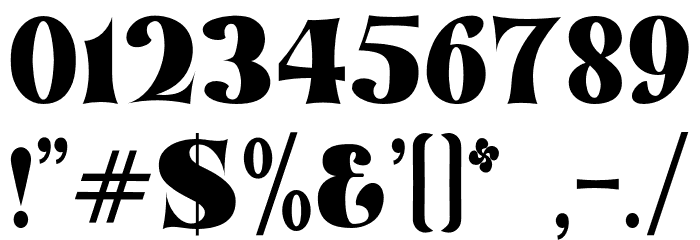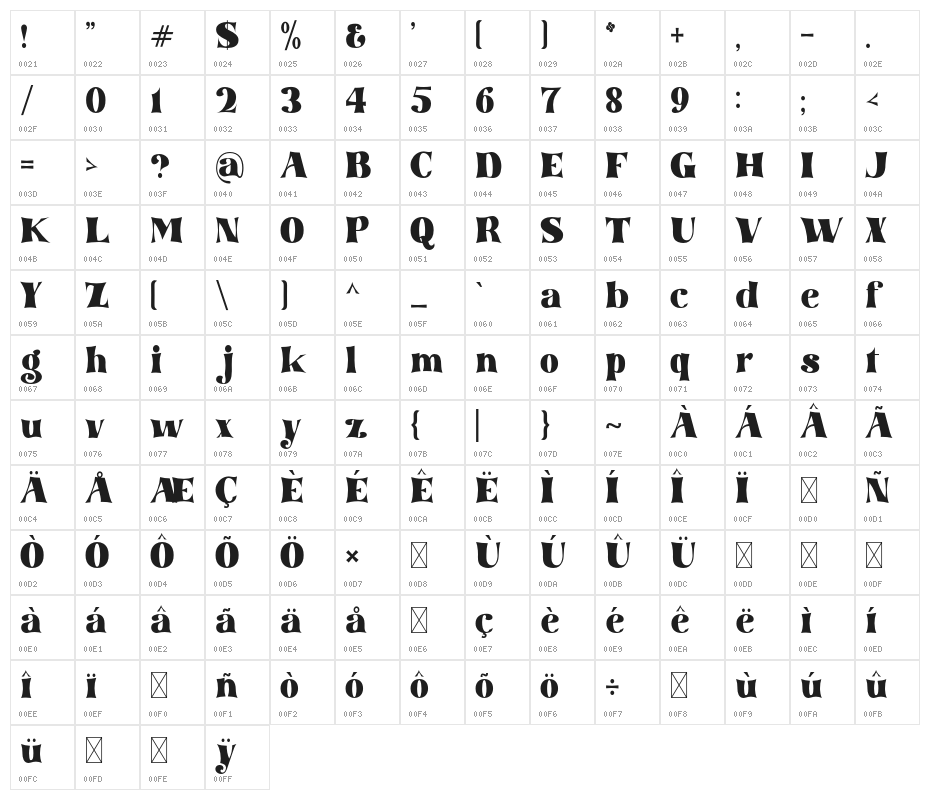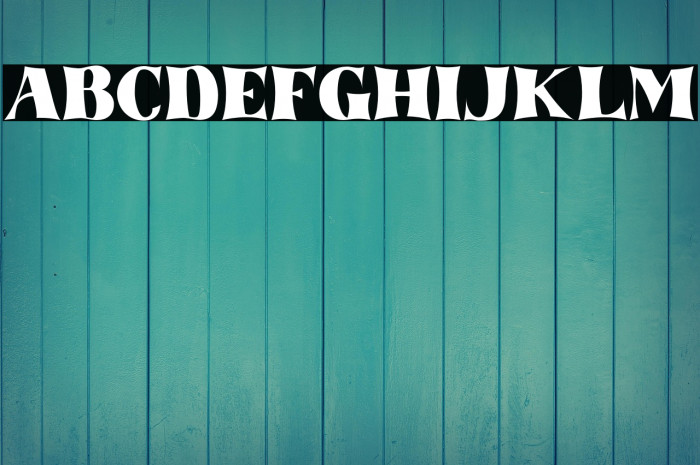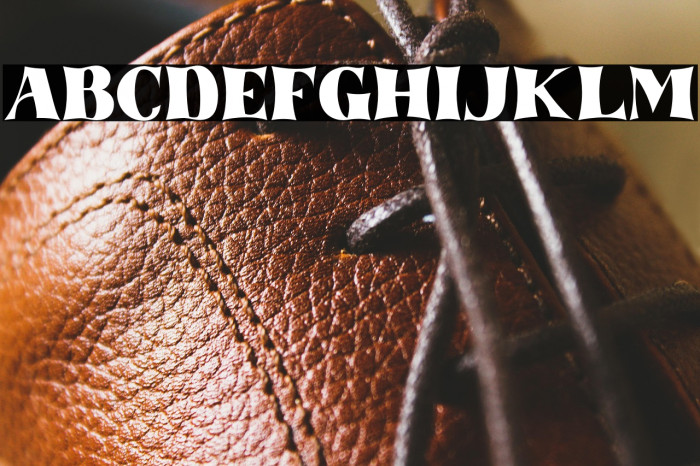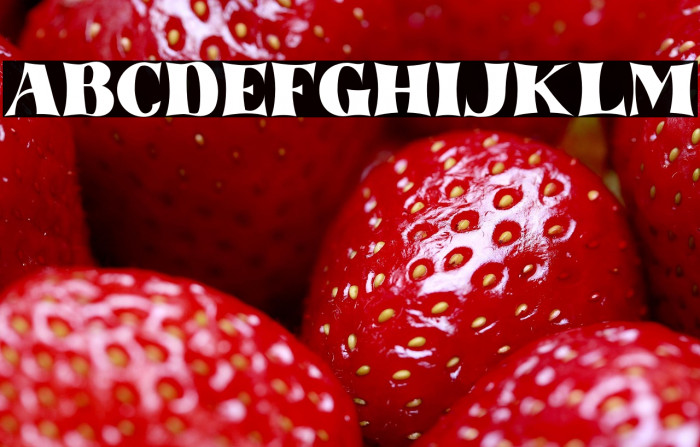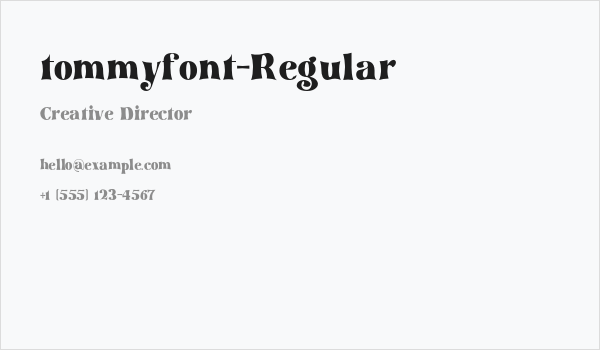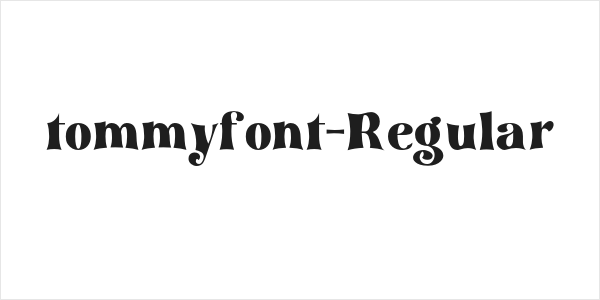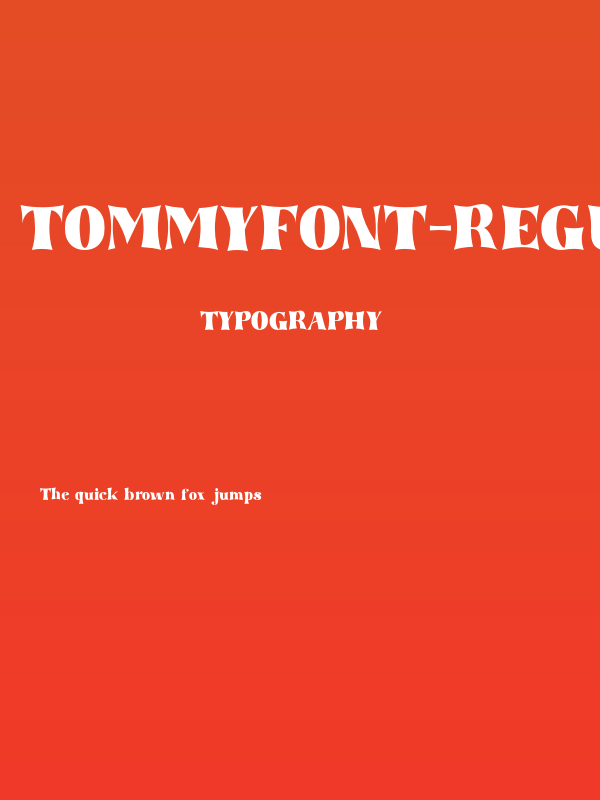
tommyfont-Regular Font
tommyfont-Regular Description
This font features a bold and dynamic style with a strong presence. The characters exhibit a playful yet robust design, characterized by thick strokes and unique curves that give it a distinctive appearance. The uppercase letters are particularly striking, with exaggerated serifs and a slightly condensed form that adds to their impact. The lowercase letters maintain a consistent style, offering a harmonious blend with the uppercase set. Numbers and special characters are equally bold, ensuring readability and aesthetic appeal across various applications. The overall design is both modern and decorative, making it suitable for eye-catching headlines and creative projects.
Overall StyleModern, Decorative
Proposed ProjectsIdeal for branding, posters, headlines, and any project requiring a bold, eye-catching typeface.